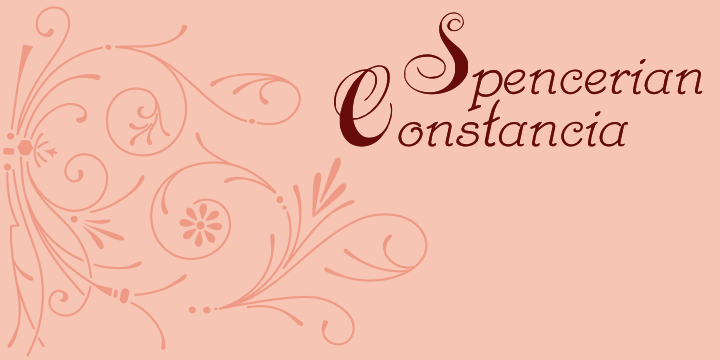
Looking for a font that embodies the timeless elegance of 19th-century handwriting? Spencerian Constancia Font Free Download perfectly captures the graceful, flowing script style of the Spencerian tradition. Ideal for wedding invitations, vintage branding, certificates, and artistic projects that need a touch of classic sophistication.
You can download Spencerian Constancia Font Free Download for free to explore its delicate curves and fluid strokes. For commercial use, be sure to purchase the correct license to maintain professionalism and legal compliance. This font’s beautifully crafted swashes and ligatures bring an authentic, hand-lettered feel to your designs.
Whether you're creating elegant stationery, luxury packaging, or bespoke logos, Spencerian Constancia Font Free Download adds a refined, historic charm. Its detailed script style ensures your work stands out with a sophisticated flourish.